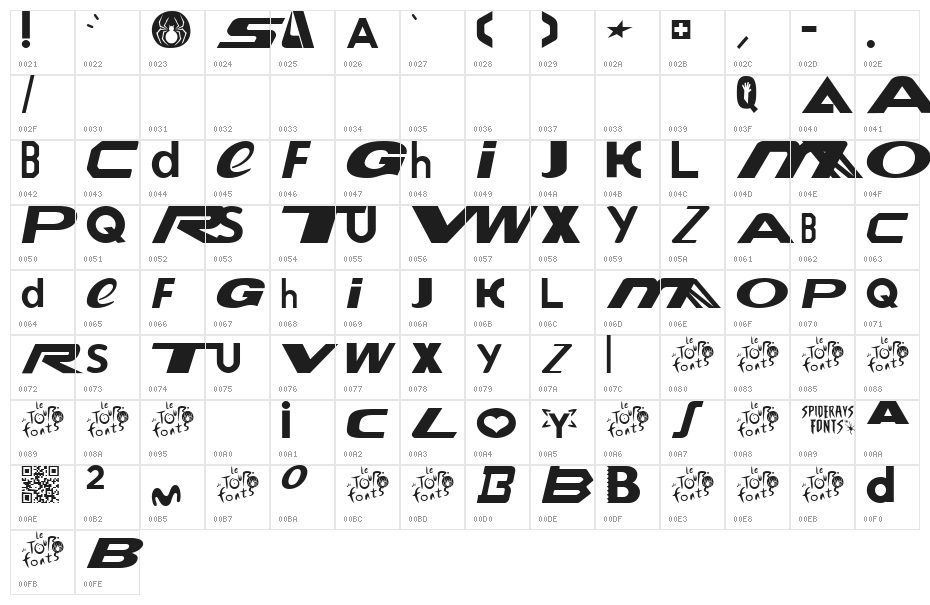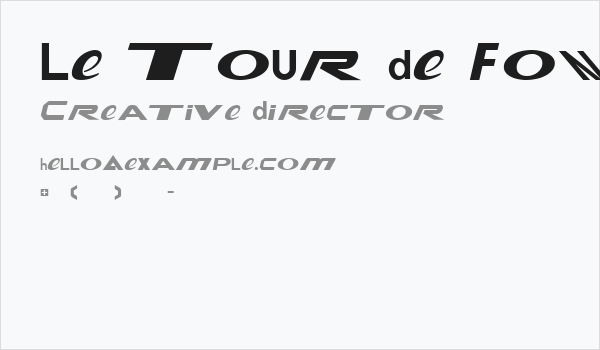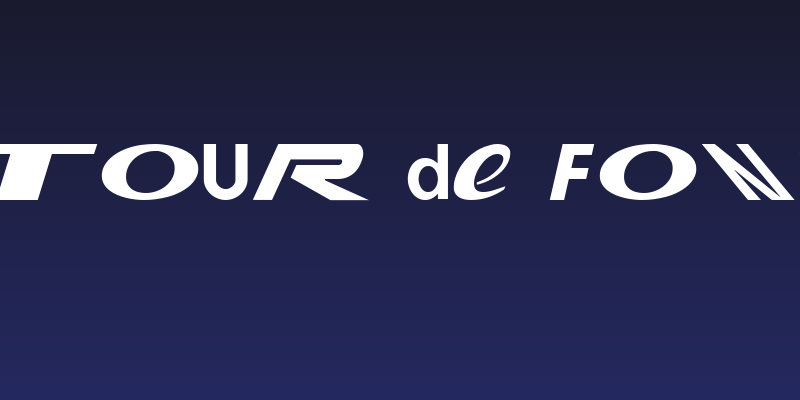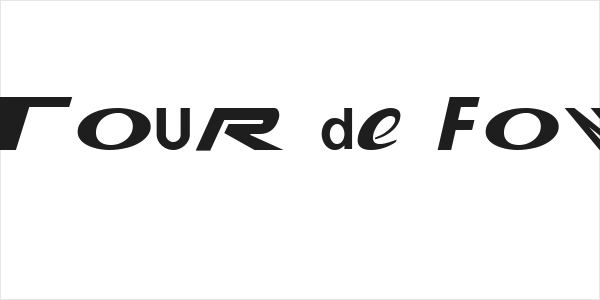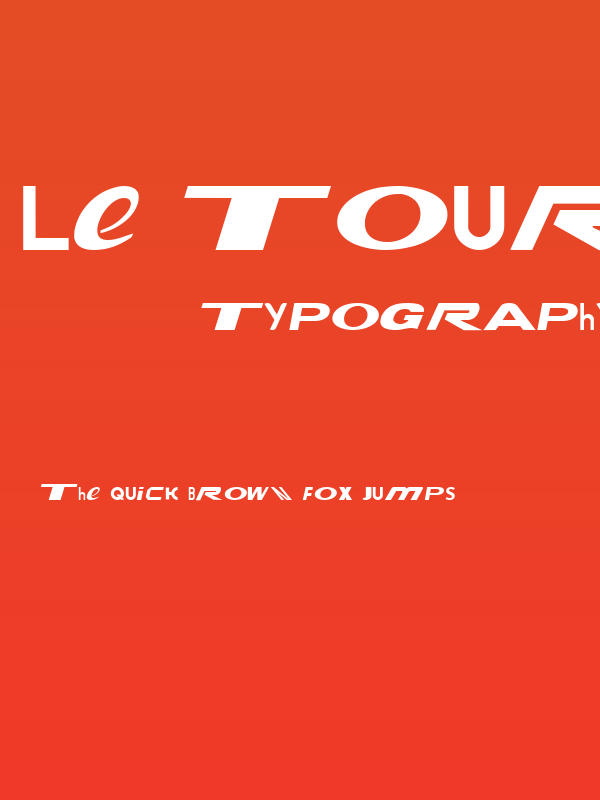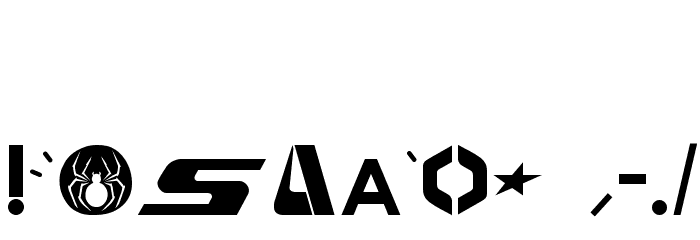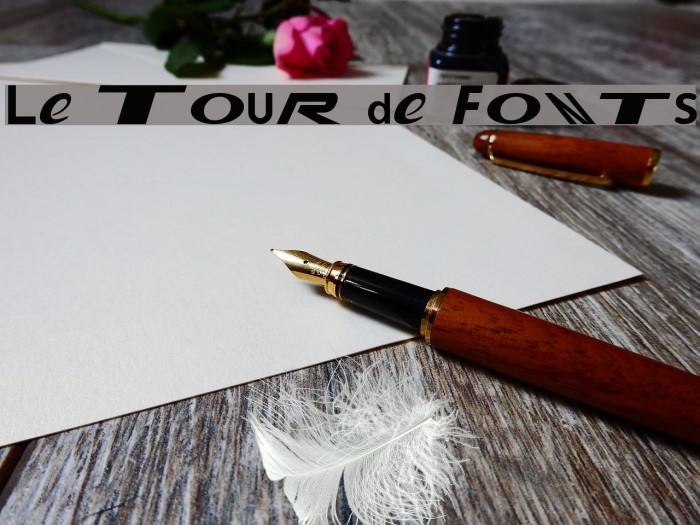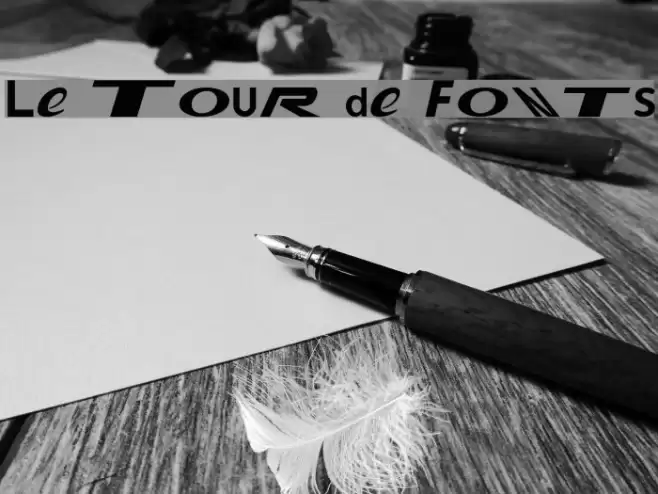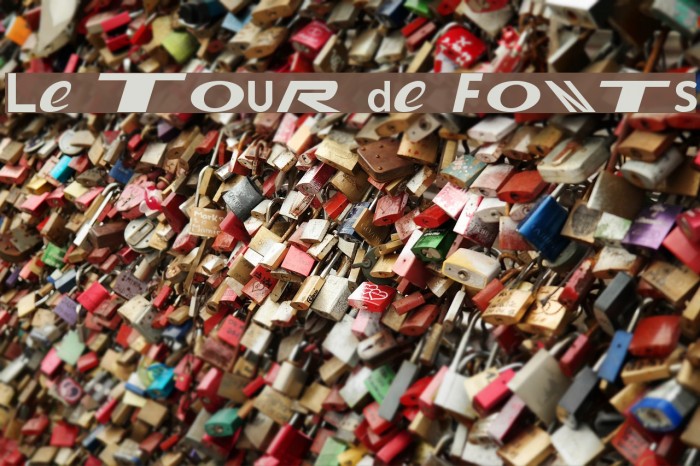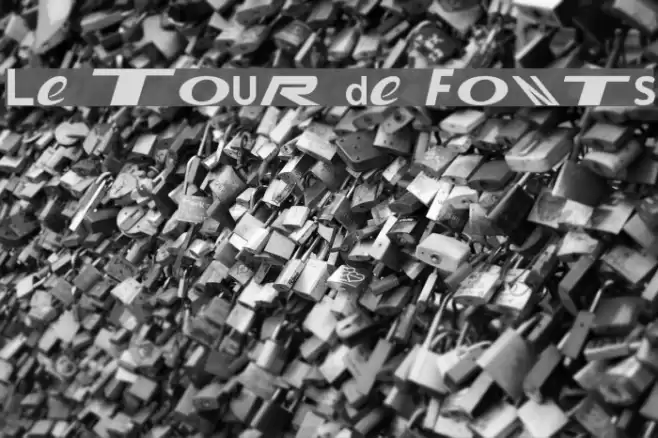
Le Tour de Fonts Font
Le Tour de Fonts Description
This font exhibits a bold and dynamic style, characterized by its sharp angles and sleek, italicized forms. The uppercase letters are particularly striking, with a futuristic and aerodynamic appearance, reminiscent of speed and motion. The lowercase letters maintain a cohesive look, complementing the uppercase with their own unique flair. Numbers and special characters follow the same design principles, ensuring consistency across all elements. The font's overall aesthetic is modern and edgy, making it suitable for projects that require a strong visual impact.
Le Tour de Fonts
| Proposed Projects | Ideal for sports branding, automotive designs, tech-related projects, and dynamic advertising campaigns. |